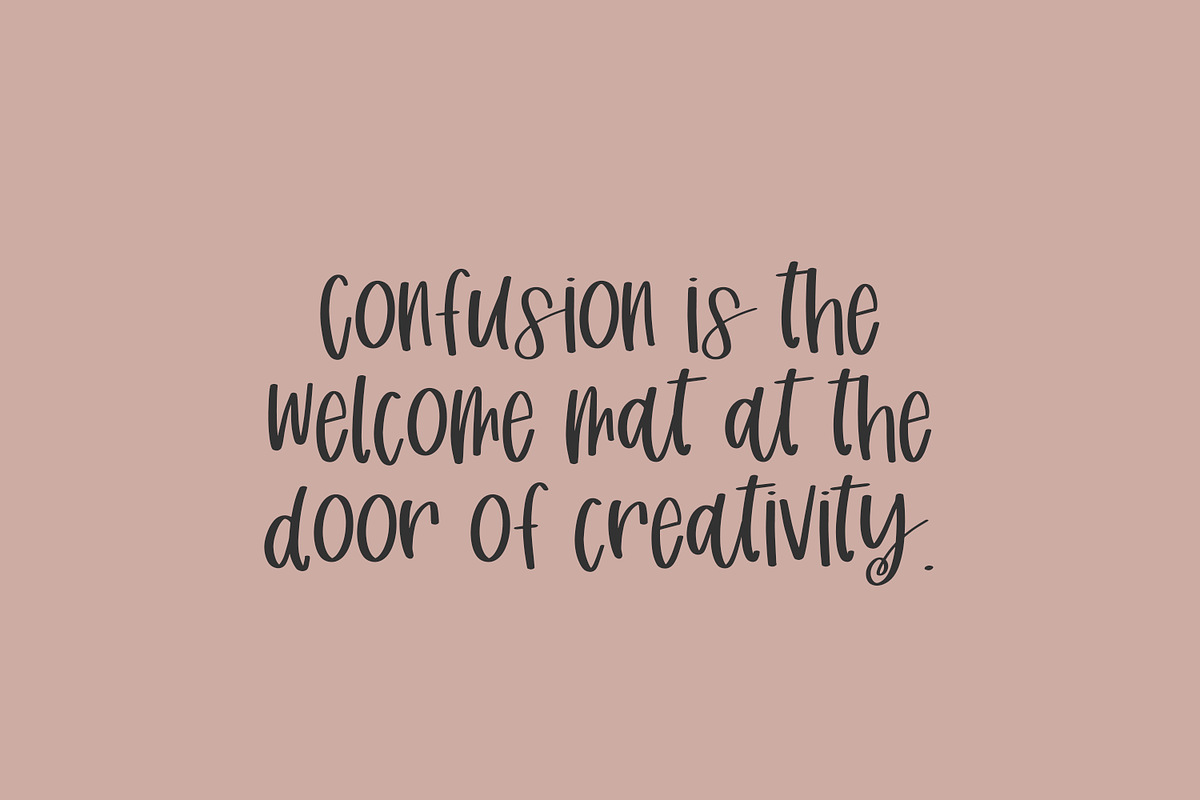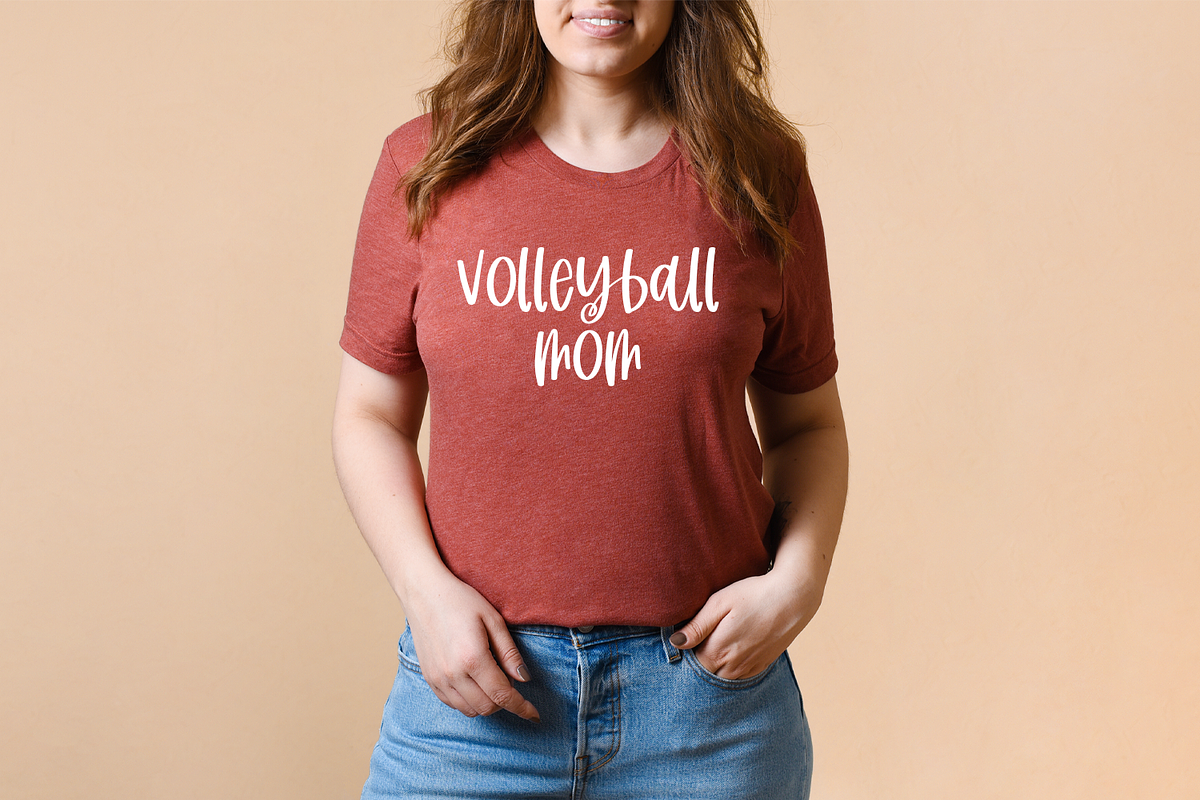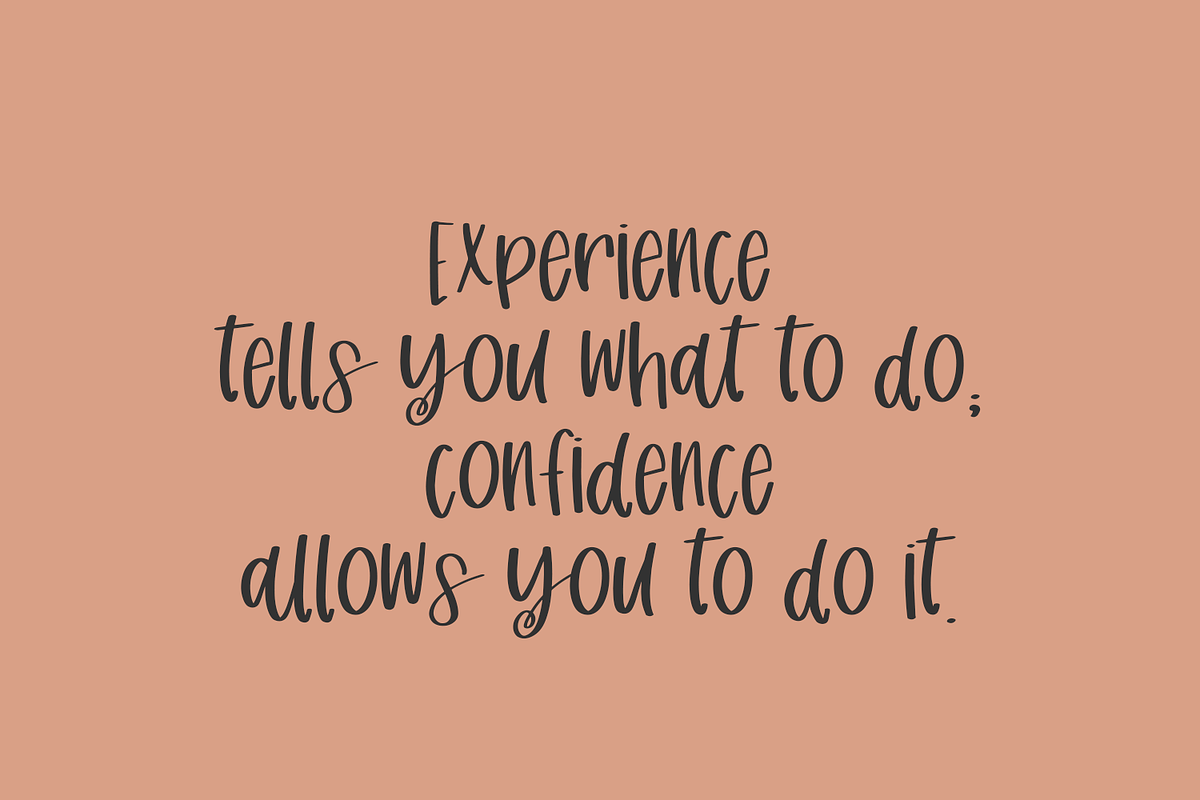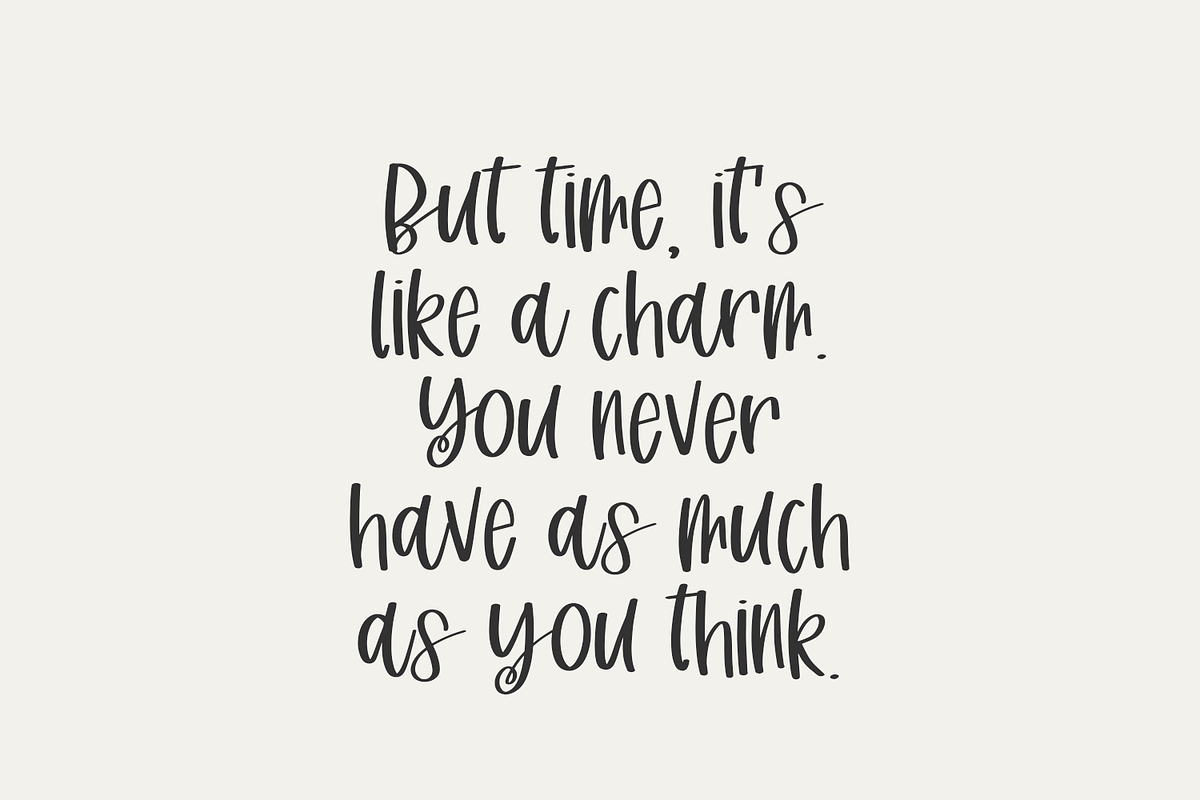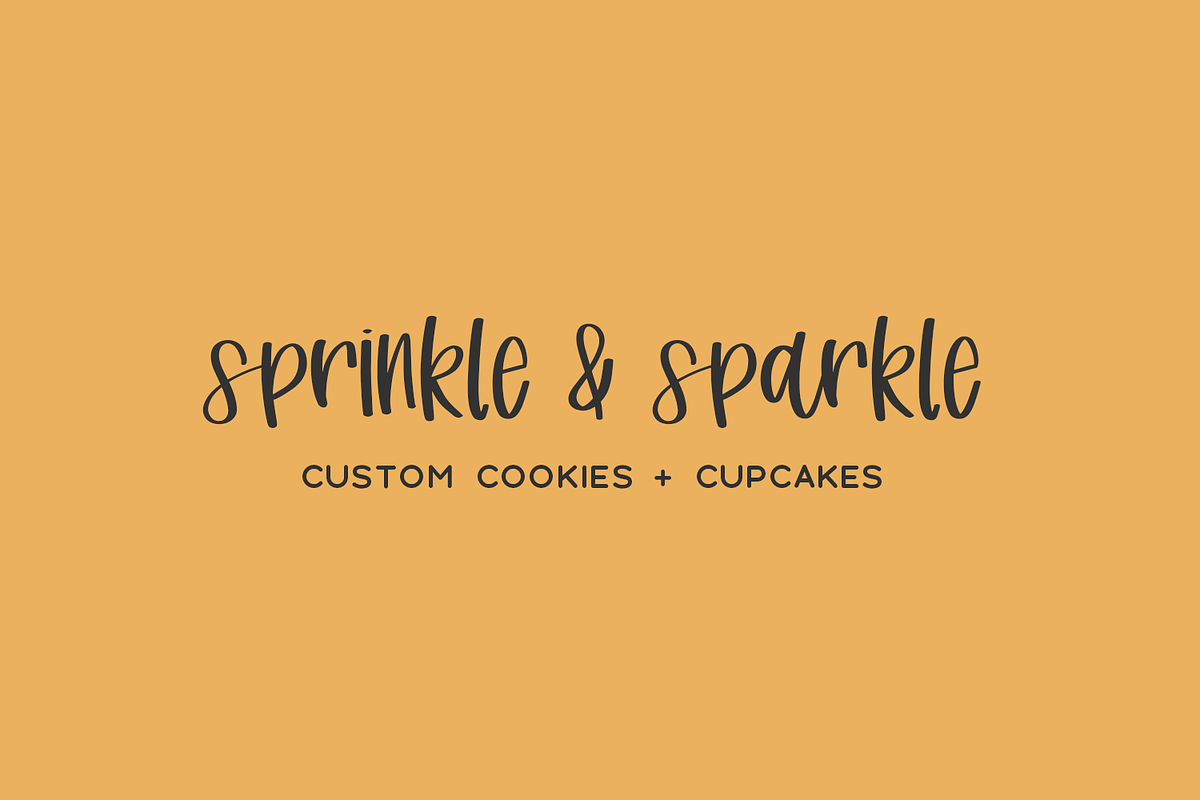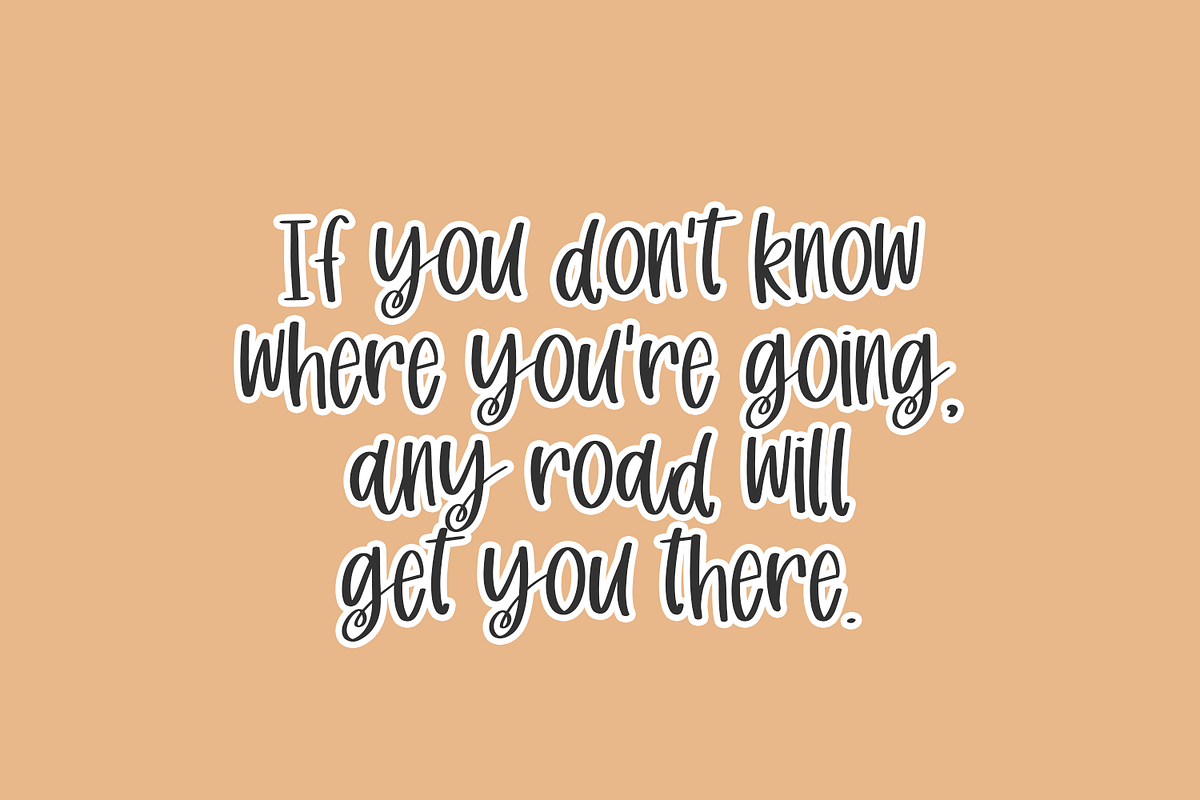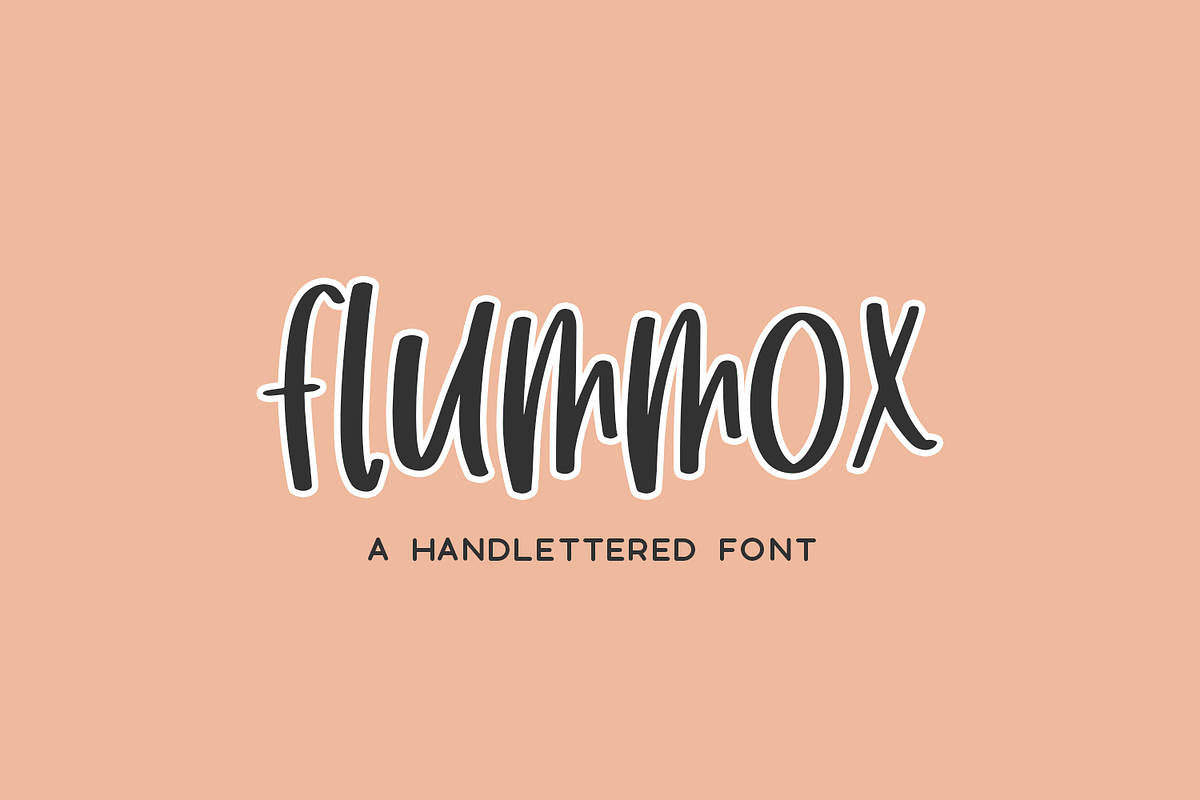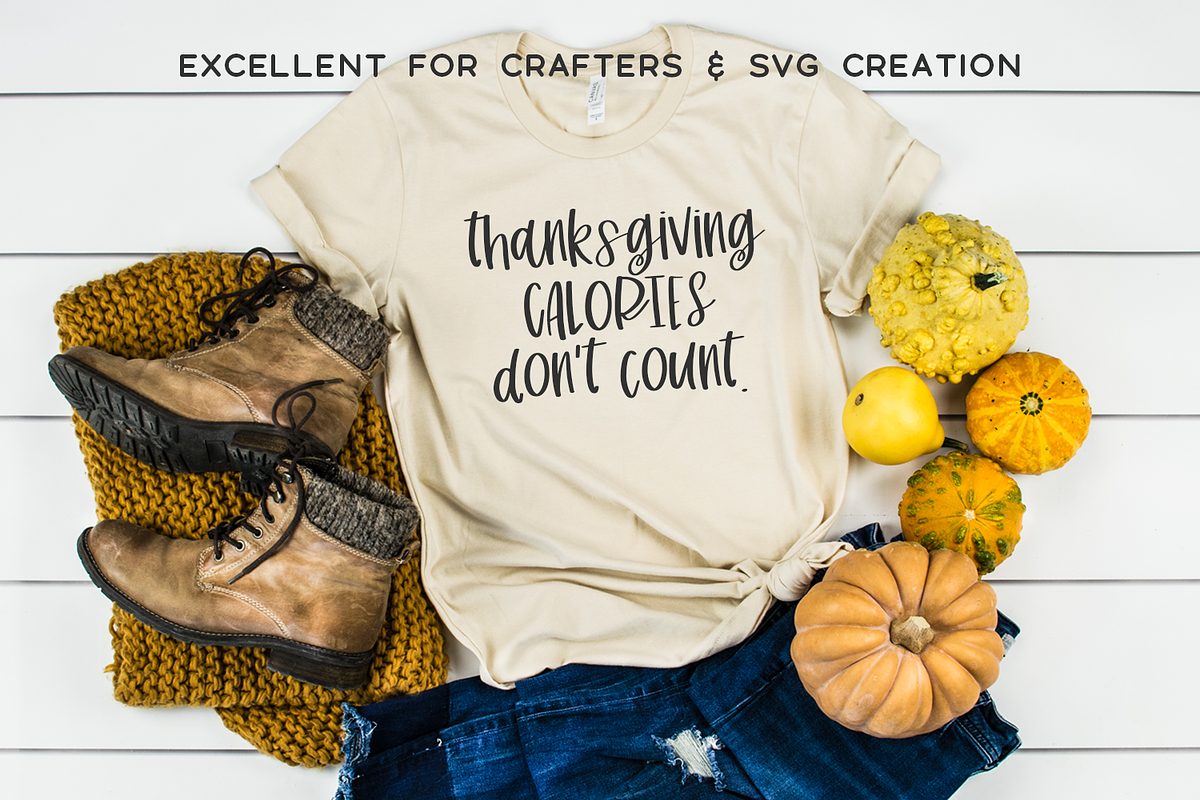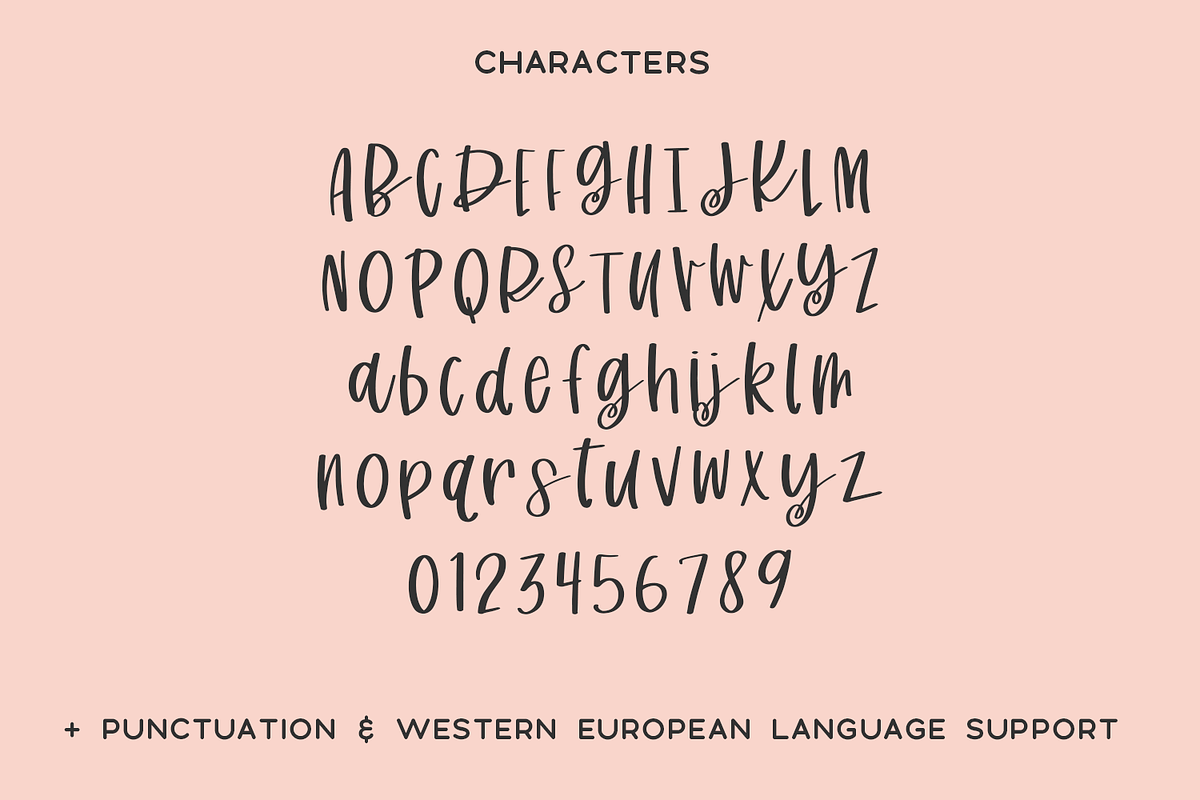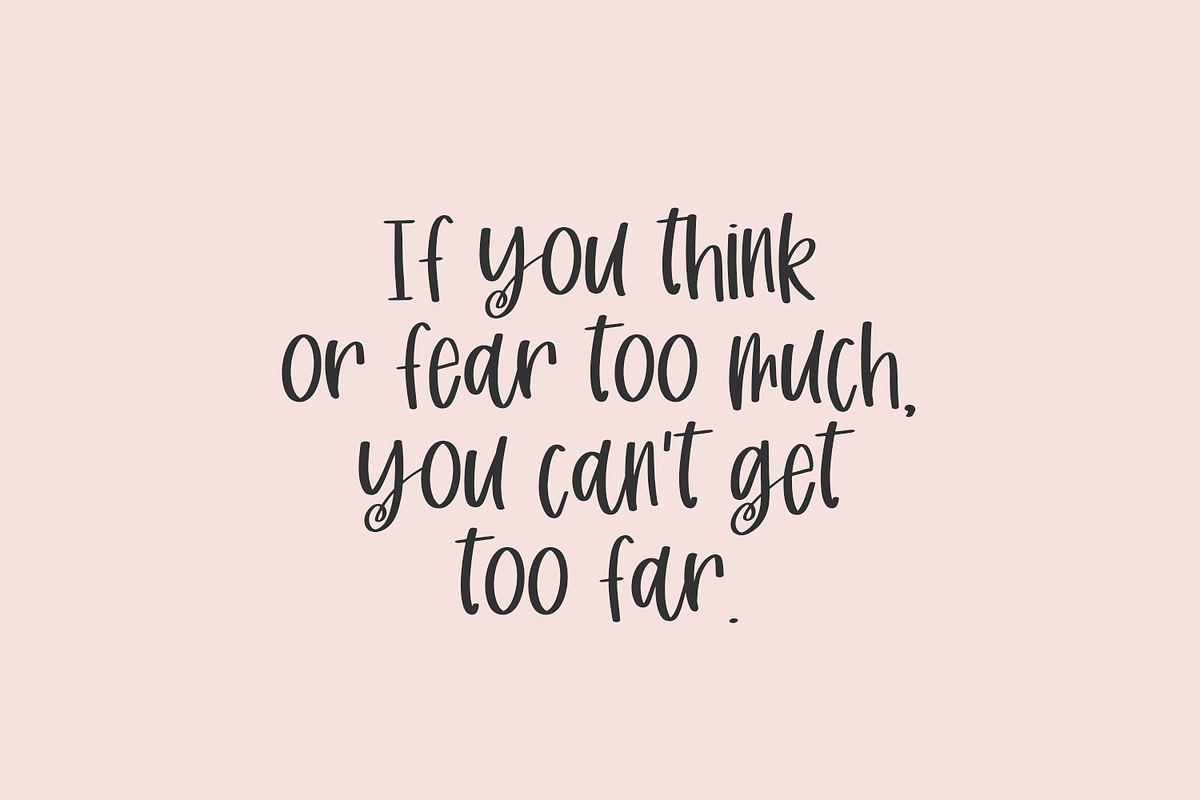
Flummox Sans
Introducing Flummox, a bouncy semi-cursive font with a cute flourished descenders. Flummox is a medium-thickness font with a super smooth edge, perfect for vinyl cutting or crafting.
Flummox is best for:
- logos + branding
- crafting projects on your Cricut or Silhouette machine - Flummox features a smooth edge for cutting & is super legible
- header elements that need handwritten touch
- quote graphics for social media like Facebook or Instagram
Flummox Script includes:
- full upper + lowercase characters
- numbers + punctuation
- Western European Language Support